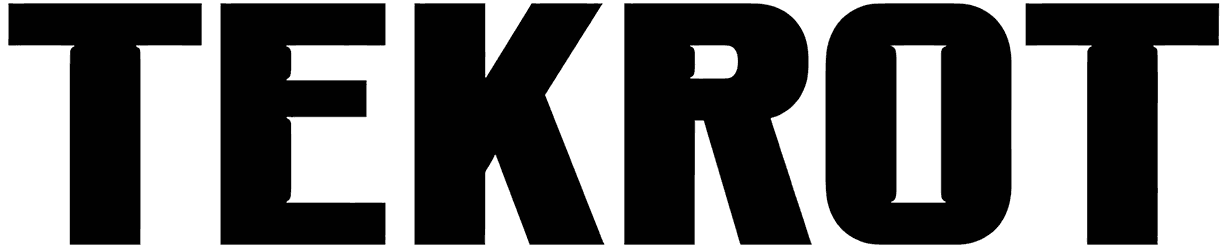
Crewniverse Font
Crewniverse is a high-quality sans serif font that comes in handy in any main text due to its high readability. It can be visible in any digital publications, apps, websites, urban, branding, and anything else to make them stand out with its modern style. This font can boost your typography skills when you want to give off friendly and approachable vibes.
Crewniverse is a font that replicates the one used for the title cards of the TV show Steven Universe™, as well as the logo of the Steven Crewniverse’s Tumblr.
2015-2016 – Font by MaxiGamer – maxigamer.deviantart.com
Made in FontForge.
Designed by: MaxiGamer